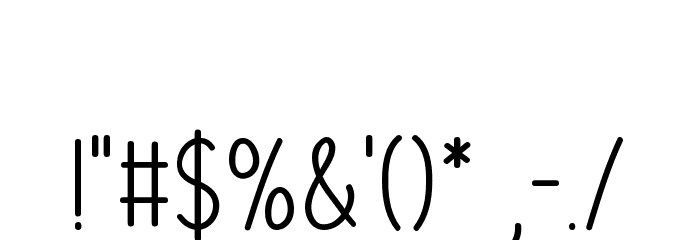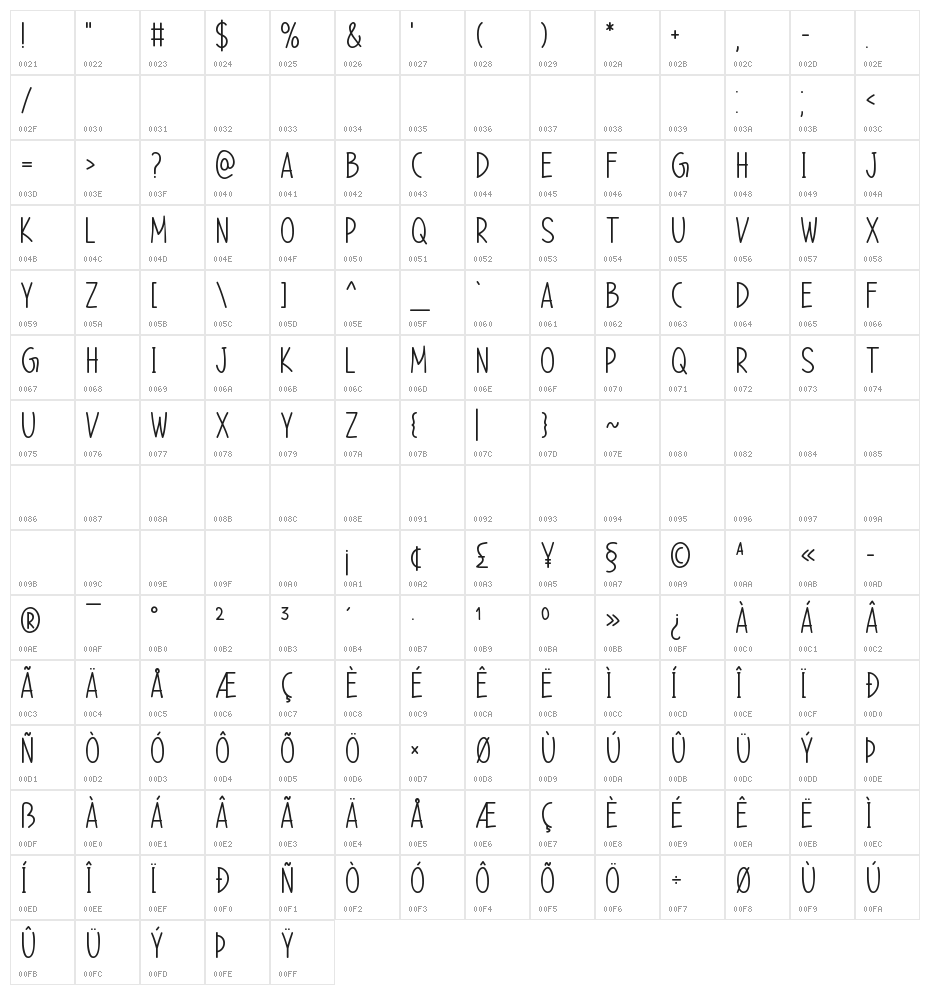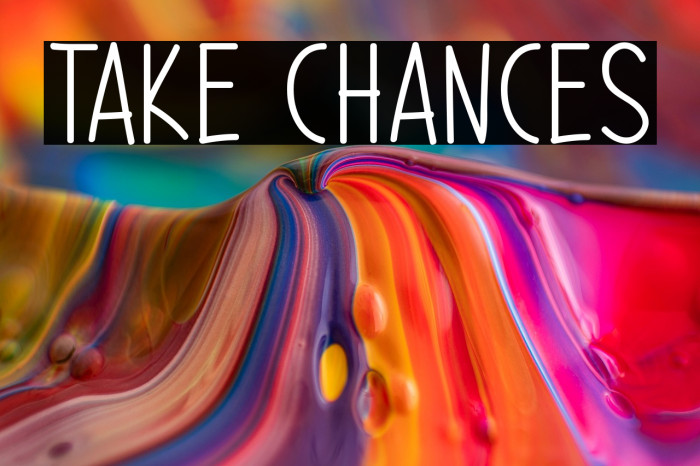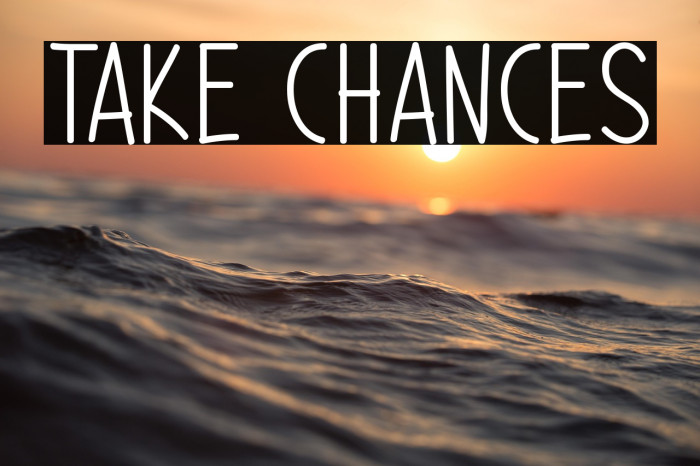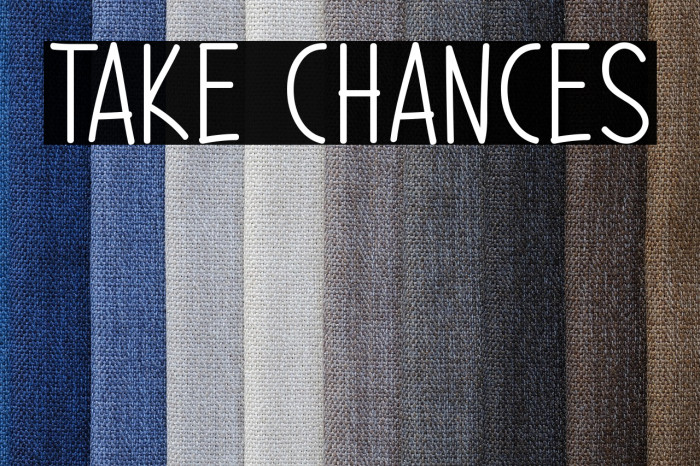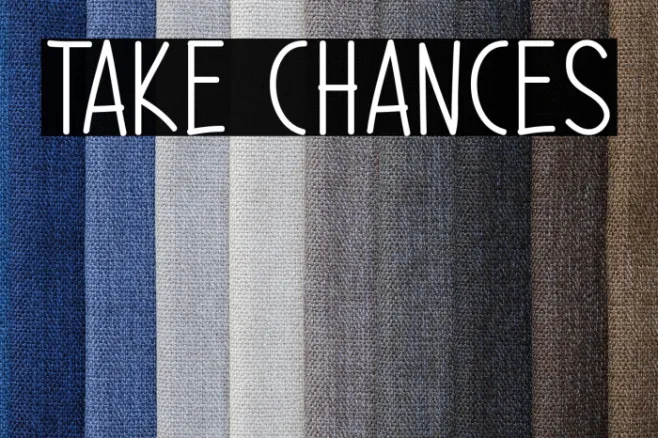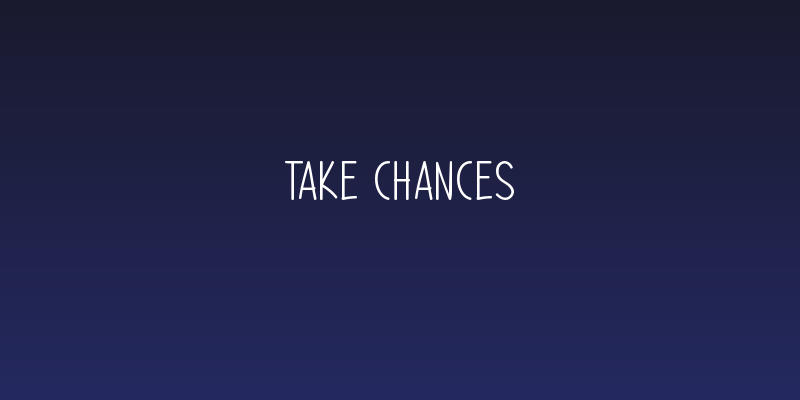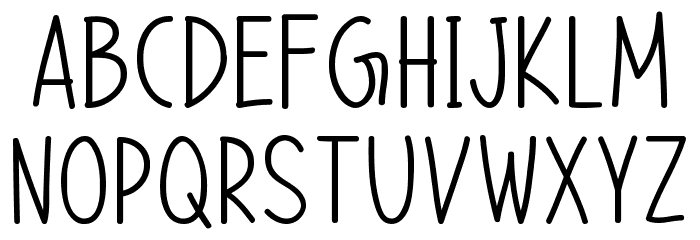
Take Chances Font
Take Chances Description
This playful and whimsical font features a handwritten style with a casual and friendly appearance. The characters are slightly irregular, giving it a charming and approachable feel. The uppercase letters are tall and slender, while the lowercase letters maintain a consistent height, creating a harmonious balance. The strokes are smooth and rounded, adding to the font's inviting nature. The spacing between characters is normal, ensuring readability while maintaining its unique character. This font is perfect for projects that require a personal touch or a fun, informal vibe.